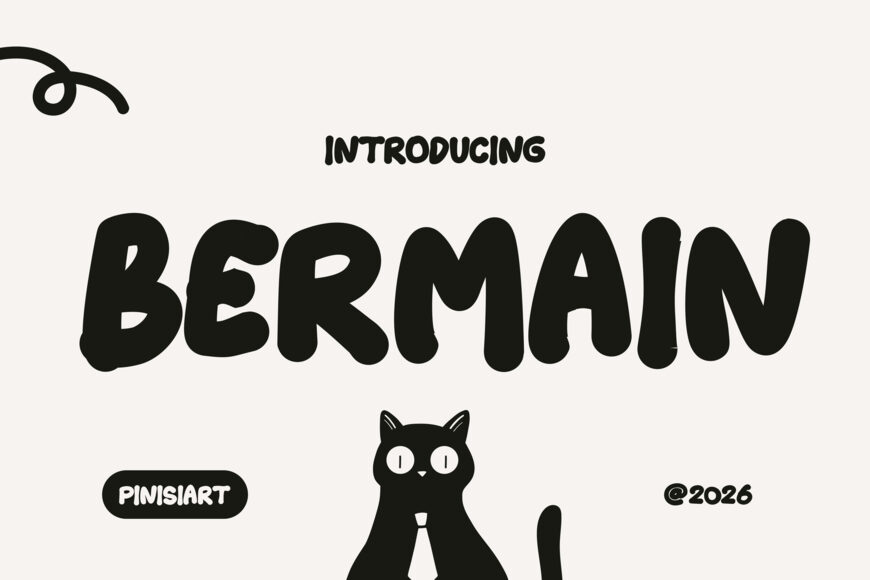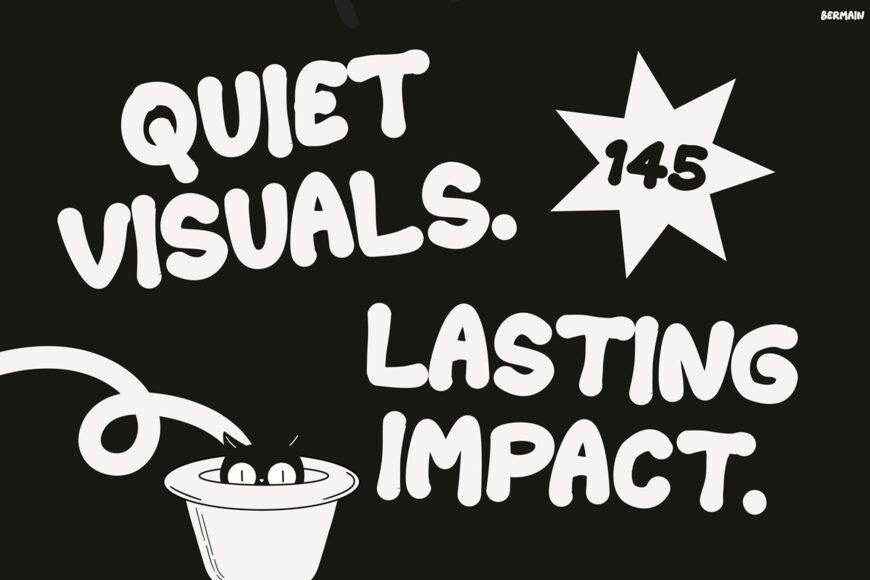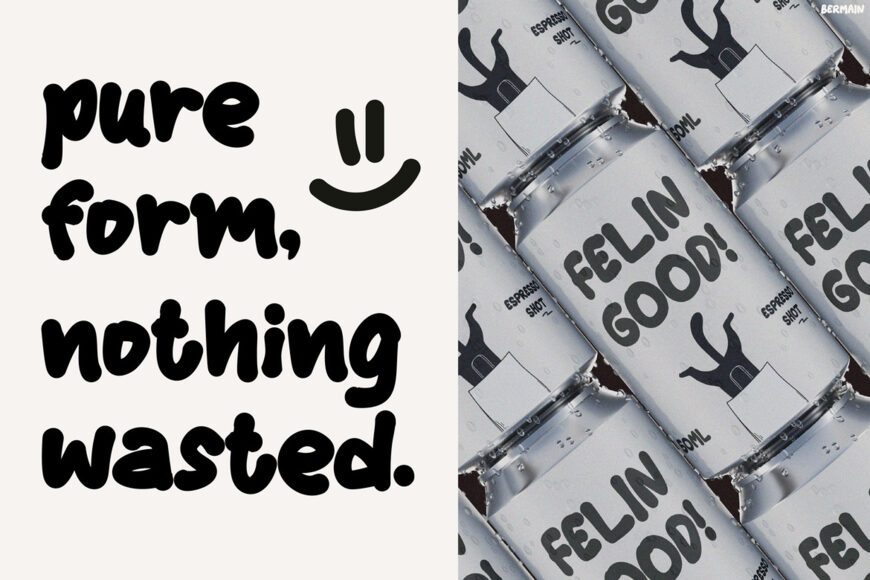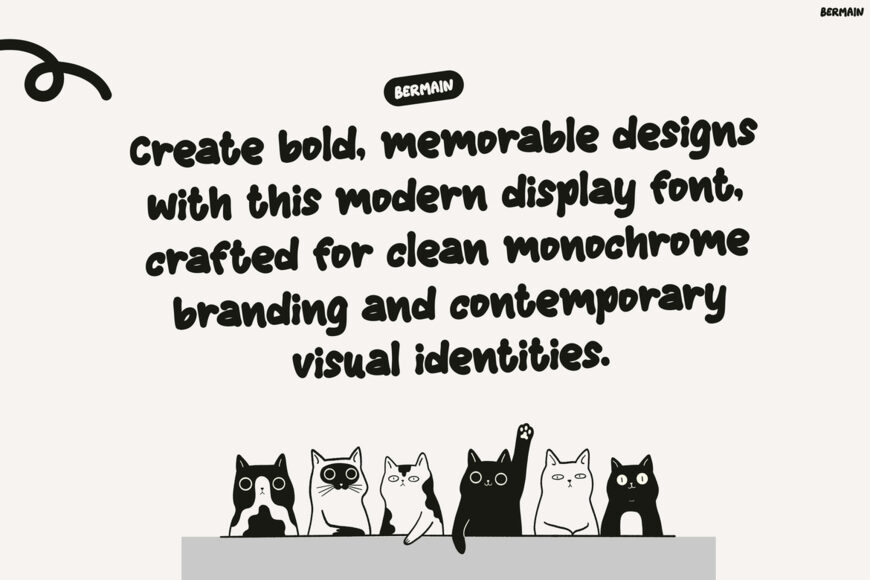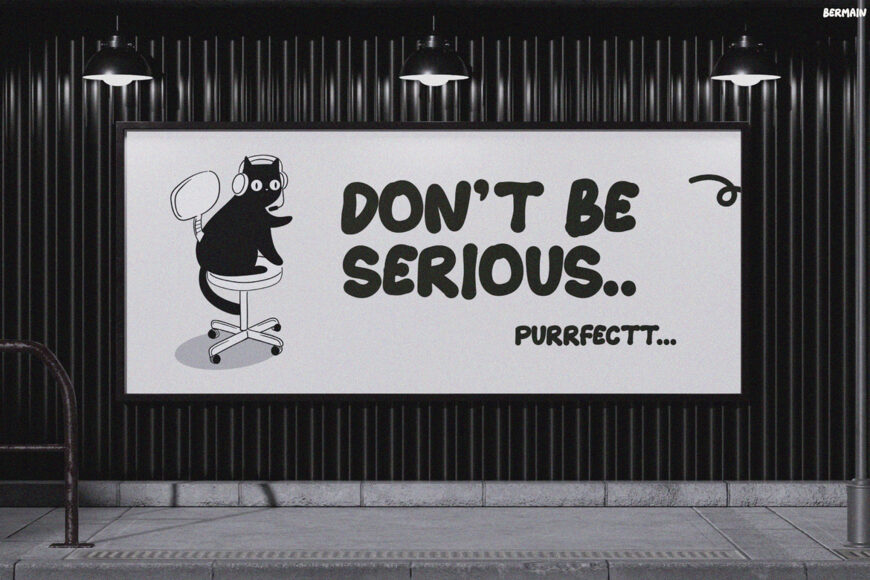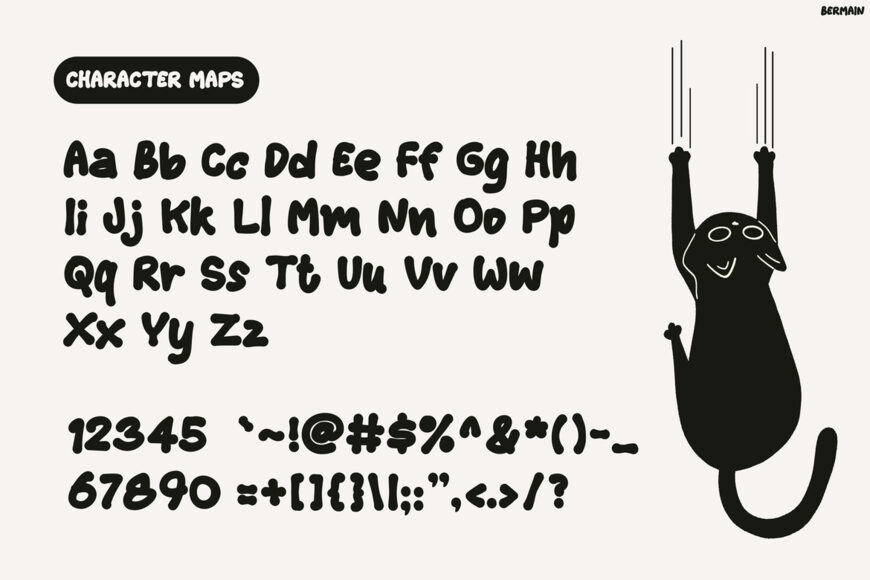
Bermain is a bold display font with chunky letterforms, soft rounded edges, and playful proportions. Inspired by childhood imagination, it delivers a friendly yet confident personality. Every character is designed to feel expressive and full of energy. Whether you are creating branding, posters, or packaging, Bermain adds a cheerful and modern touch.